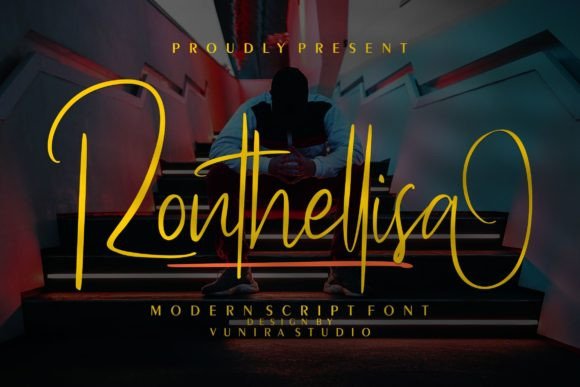
Introducing Ronthellisa Font - A Script Font Family That Will Captivate Your Designs
Ronthellisa Font, a remarkable creation from Vunira, is a modern script font with a captivating calligraphy style that is sure to leave a lasting impression on your designs. Its elegant curves and flowing lines evoke a sense of sophistication and charm, making it an ideal choice for a wide range of projects, including invitations, greeting cards, branding materials, business cards, quotes, posters, and so much more.
Step into a world of creativity and elevate your designs with Ronthellisa Font. Its enchanting calligraphy style brings a touch of timeless elegance to your projects, whether you're creating stunning logos, eye-catching social media graphics, or unforgettable marketing materials. With its versatility, Ronthellisa Font effortlessly adapts to various design aesthetics, from classic and vintage to modern and contemporary.
Unlock a realm of endless possibilities with Ronthellisa Font. Its meticulously crafted characters dance across your screen, capturing the essence of handwritten beauty. From heartfelt love letters to inspiring quotes, Ronthellisa Font adds a personal touch that resonates with your audience. Let your words flow with grace and elegance, leaving a lasting impact that lingers in their minds.
Discover the magic of Ronthellisa Font today and embark on a creative journey like never before. Its enchanting calligraphy style will transform your designs into works of art, captivating your audience and leaving them spellbound. Embrace the beauty of handwritten elegance and let Ronthellisa Font elevate your designs to new heights.